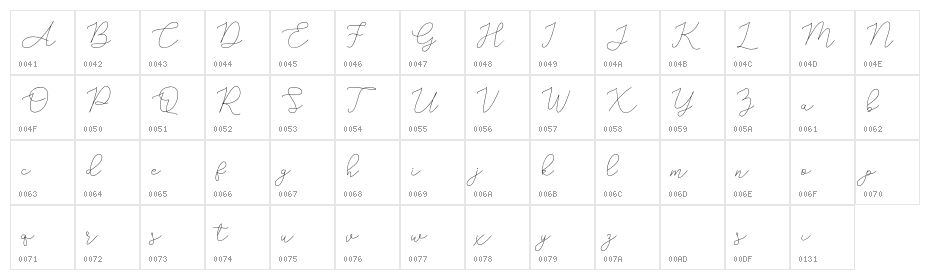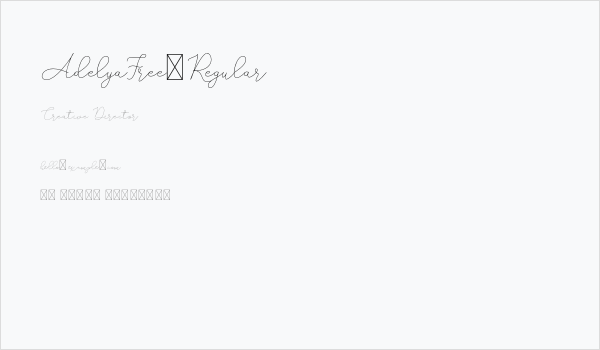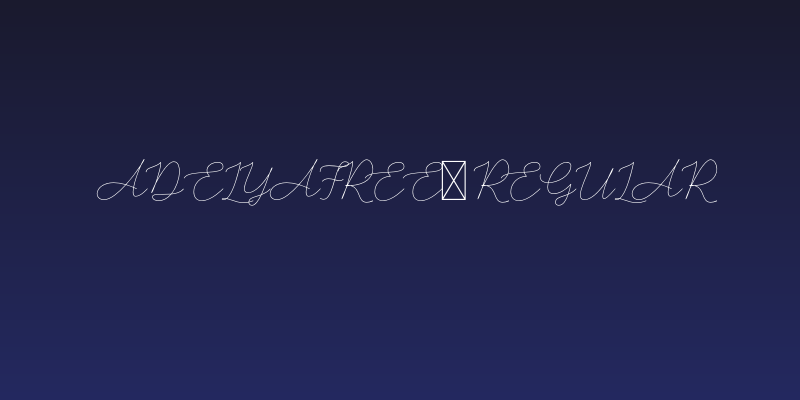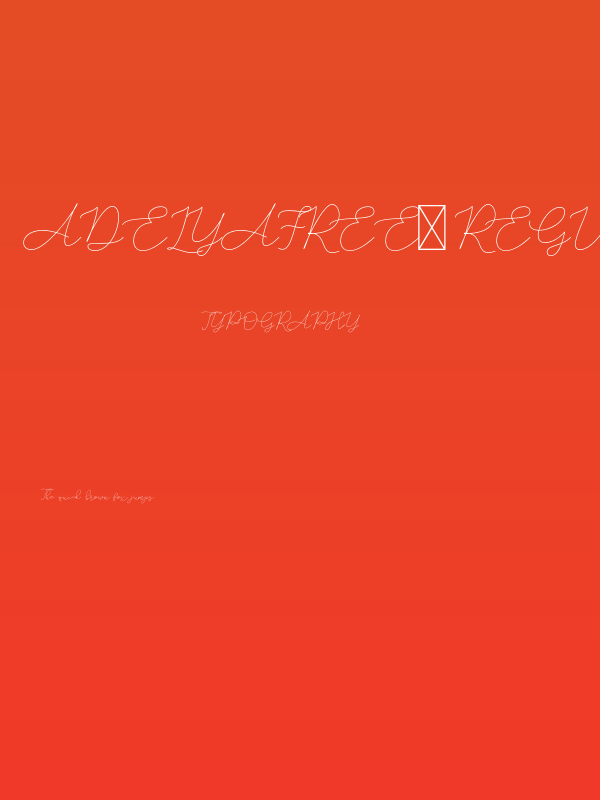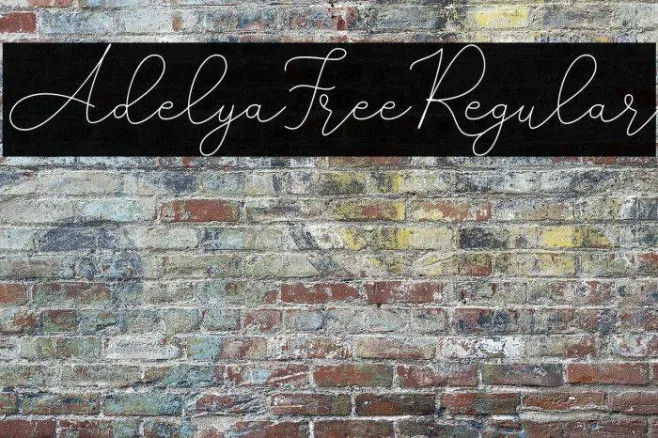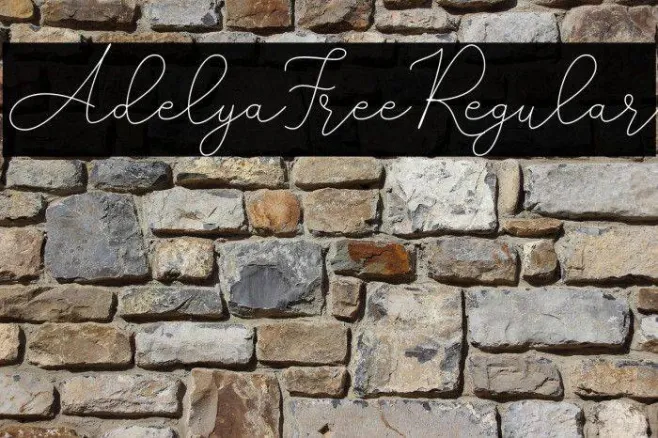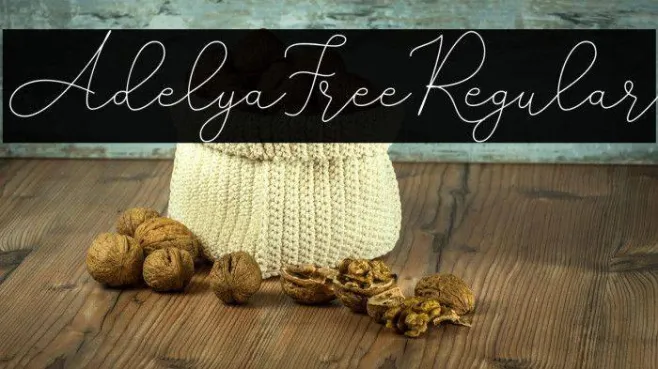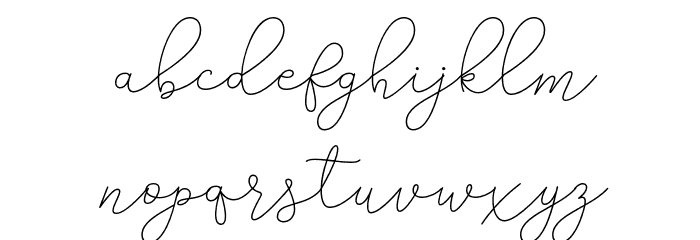
AdelyaFree-Regular Font
AdelyaFree-Regular Description
This elegant script font features a delicate and flowing style, characterized by its smooth, continuous strokes and graceful curves. The uppercase letters exhibit a refined, sophisticated appearance with intricate loops and swashes, while the lowercase letters maintain a cohesive and harmonious flow. The font's overall aesthetic is reminiscent of classic calligraphy, making it ideal for projects that require a touch of elegance and sophistication. The characters are well-spaced, ensuring readability while maintaining the font's artistic flair.